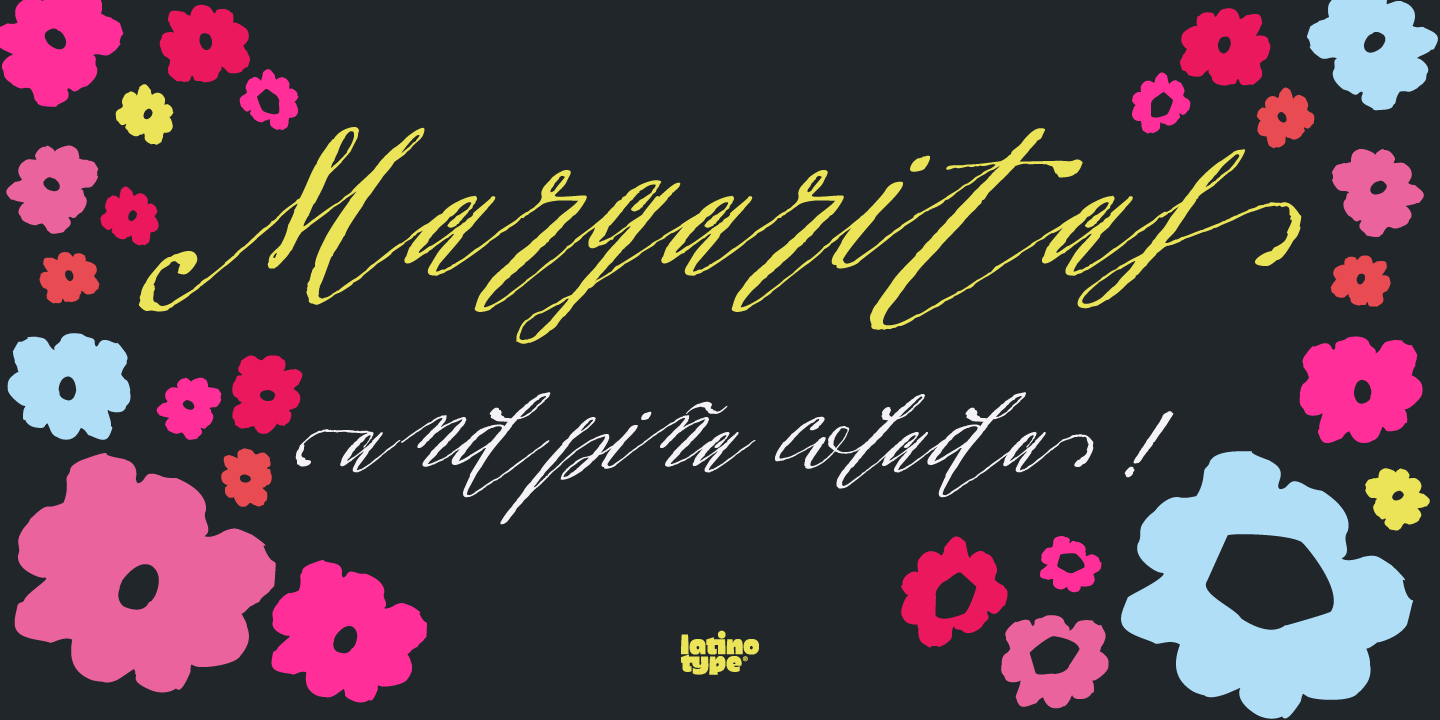
GoGipsy Font is ideal for travel agency branding, adventure tourism campaigns, bohemian lifestyle marketing, world music promotions, cultural festival materials, artistic event posters, wanderlust-inspired designs, nomadic lifestyle blogs, eclectic fashion brands, and free-spirited creative projects. This distinctive typeface excels in environments where wanderlust, creativity, and artistic freedom are essential for connecting with adventurous and culturally curious audiences.
What makes GoGipsy Font exciting is its captivating fusion of nomadic spirit with artistic expression, creating letterforms that embody the freedom and wandering soul of cultural exploration. The font features organic, flowing characteristics with subtle ethnic influences that capture the essence of global travel and artistic discovery. This bohemian aesthetic makes it perfect for brands seeking to communicate adventure, cultural appreciation, and the transformative power of travel experiences.
GoGipsy Font family includes Light, Regular, Medium, Bold, Ornamental, Script, Decorative, and Vintage variants. Each style maintains the font's distinctive wandering character while offering different levels of artistic expression and cultural richness, enabling designers to create authentic bohemian compositions that celebrate global diversity and creative exploration.
The GoGipsy Font Free Download provides designers with access to a premium bohemian typeface that embodies the spirit of cultural wandering and artistic discovery. This font's worldly aesthetic and free-spirited qualities make it particularly valuable for travel brands, cultural organizations, and creative businesses targeting audiences who appreciate global experiences and artistic expression.
Creative professionals appreciate the font's ability to instantly communicate wanderlust, cultural curiosity, and artistic freedom. The letterforms' flowing characteristics and ethnic influences create emotional connections that standard commercial fonts cannot achieve, making it essential for projects requiring distinctive bohemian personality and global appeal.
When working with GoGipsy Font, designers can create compelling visual narratives that resonate with travelers, artists, and culturally conscious consumers. The font's nomadic character makes it especially effective for brands in travel, cultural arts, creative services, and lifestyle products where authentic worldly appeal and artistic credibility are crucial for market connection.
For digital applications, GoGipsy Font maintains its distinctive wandering qualities across different platforms while ensuring readability in modern contexts. Its optimized character spacing preserves the flowing nature essential for authentic bohemian appeal.
Design agencies consistently select GoGipsy Font for projects requiring genuine cultural appeal and artistic authenticity, where conventional typography cannot capture the desired wanderlust and creative freedom that defines contemporary bohemian and travel culture.